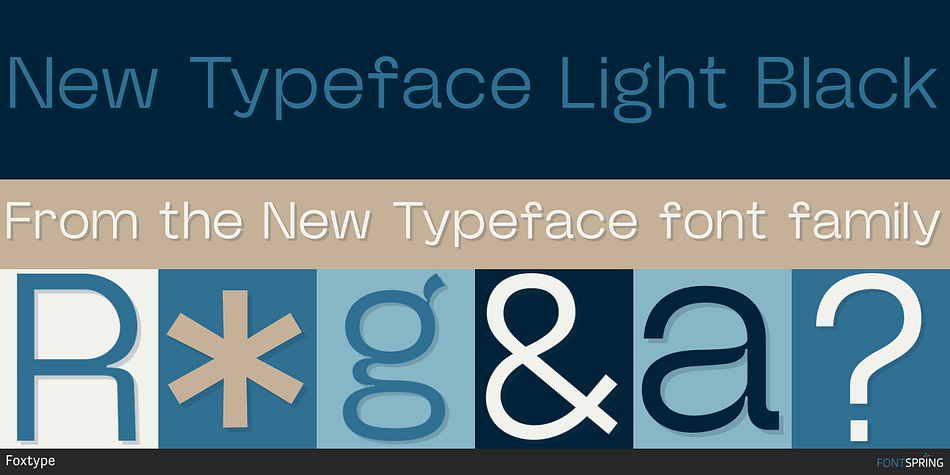
New Typeface Light Black
New Typeface is a display sans and sans serif font family. This typeface has seven styles and was published by Foxtype.
Introducing NewBlack Typeface, a meticulously crafted modern sans-serif typeface perfect for a wide range of design projects. With 07 versatile weights, NewBlack excels in creating striking headlines, captivating posters, and sophisticated branding materials. Its clean lines and contemporary style make it an ideal choice for magazine covers, logo designs, paragraph texts and more.
• 07 Weights are included.
• 333+ Glyphs.
• Perfect for Branding, Headlines, Poster, Logos
Elevate your projects with the elegance and versatility of NewBlack, the perfect font for any modern design.